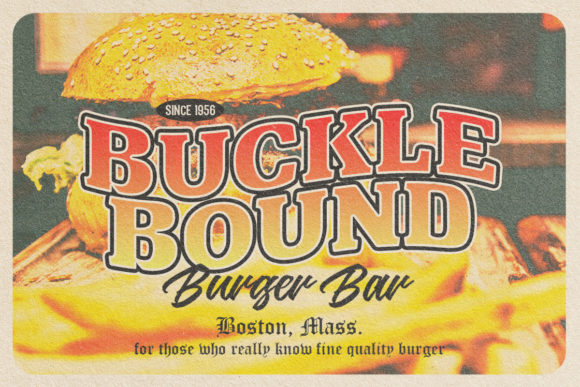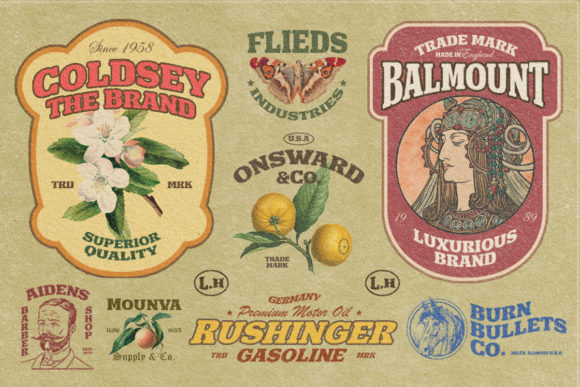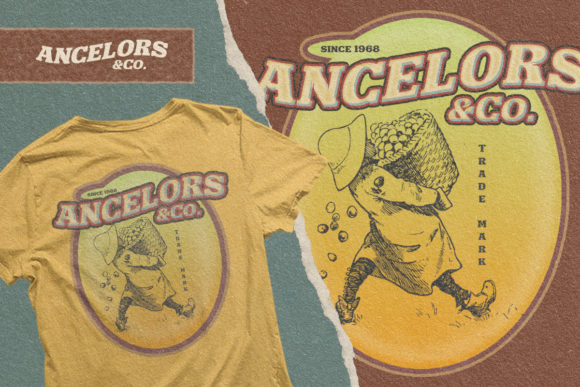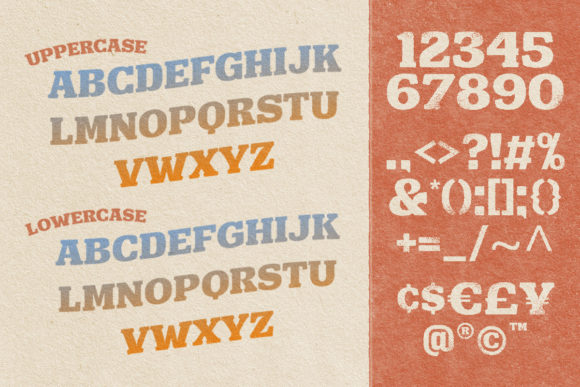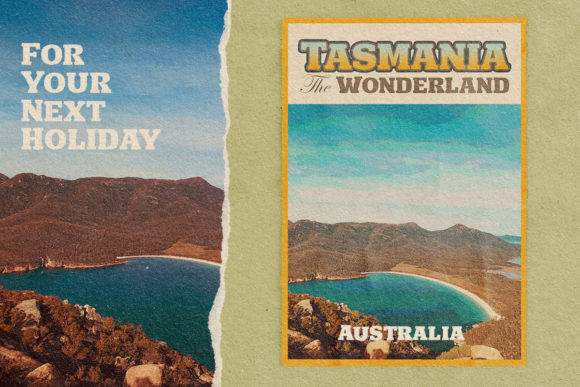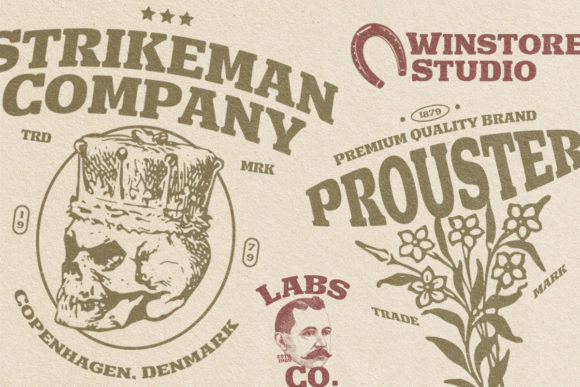
Introduction to Hulberk Font
Hulberk is a thick lettered, bold and vintage styled display font.
No matter the topic, this font will be an incredibly asset to your fontsโ€™ library, as it has the potential to elevate any creation .
Key Features of Hulberk Font
Why Choose Hulberk Font?
Hulberk Font offers exceptional quality and versatility, making it a valuable addition to your design toolkit. Whether you’re creating for personal projects or commercial use, Hulberk Font delivers professional results.